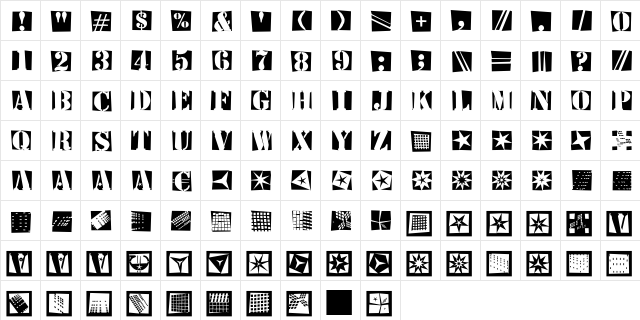
StencilBricksRandom Regular
Design Context for StencilBricksRandom Typeface
StencilBricksRandom has the rough pragmatism of spray-painted stencil signage, adding a raw, street-level authenticity to designs.
A strong choice for packaging that needs edge, warehouse aesthetics, and rough-and-ready visual identities.
Pro Tip: Use StencilBricksRandom at large sizes on packaging, posters, or apparel where the stencil cutaways read clearly. Avoid small sizes where those gaps become visual noise.